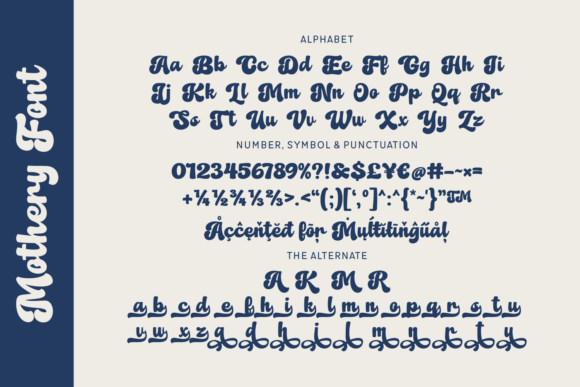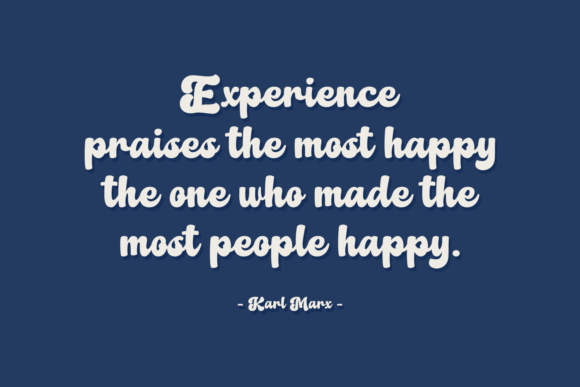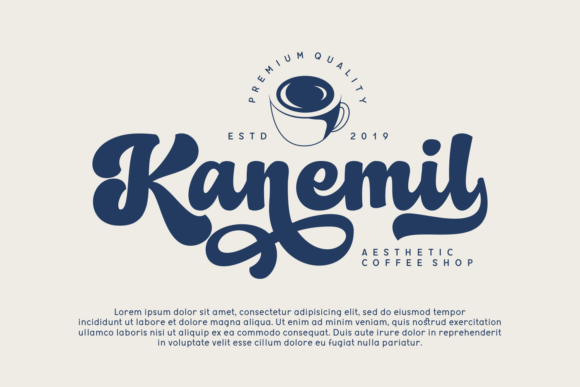
Introduction to Mothery Font
Have you ever found yourself stuck on a creative project, desperately searching for the perfect font to bring your vision to life? I’m sure many designers can relate to this frustrating yet exciting moment. For me, it was the search for a font that would add a touch of elegance to a logo design without sacrificing readability. That’s when I stumbled upon the Mothery Font – a bold, flowing script font that has since become my go-to design resource.
As a designer, having access to high-quality fonts like Mothery Font can be a game-changer. Not only does it offer a transparent background option for seamless integration, but it’s also available for free download, making it an invaluable resource for any creative project. With its smooth curves and thick, bold strokes, Mothery Font is sure to make your designs stand out while remaining easy to read.
Whether you’re working on a logo, invitation, or social media post, Mothery Font is the perfect addition to elevate your design. Its versatility and high quality make it an essential tool for any designer looking to add a personal touch to their work.
Key Features of Mothery Font
- Unique, cursive script style perfect for creative projects and design resources.
- Transparent background option allows for easy layering and customization in design projects.
- High-resolution design (up to 2048×2048 pixels) ensures crisp and clear display on various devices.
- Perfect for use in creative projects such as logos, invitations, and typography-based artwork.
Honest Review: Mothery Font
I recently came across the Mothery Font and was excited to dive in and see what it had to offer. As a designer, I’m always on the lookout for high-quality design resources that can help bring my creative projects to life.
One of the things that stood out to me about the Mothery Font is its beautiful, elegant design. It’s perfect for any project that requires a touch of sophistication and class. The font is available for free download, which is a huge bonus – I love discovering new design resources that won’t break the bank!
Here are some of the things that I love about the Mothery Font:
- ✨ Beautiful, elegant aesthetic that’s sure to impress
- ✨ Transparent background, making it easy to use with any design
- ⚠️ Limited character set – not ideal for projects that require a wide range of characters
- ⚠️ Not suitable for use on very small screens – the font may appear blurry or distorted
Overall, I was really impressed with the Mothery Font. It’s a great addition to any designer’s toolkit, and I love that it’s available for free download. Just be aware of the limitations mentioned above, and you’ll be all set to create some amazing designs!
Tips for Getting the Most Out of Mothery Font
Experiment with different font sizes and styles to create a visually appealing design. Use the Mothery Font in conjunction with other design elements to create a cohesive and engaging visual project.
The Mothery Font is ideal for creative projects such as logos, branding, and typography-based designs. Its high-quality resolution and transparent background feature make it a versatile design resource for any project.